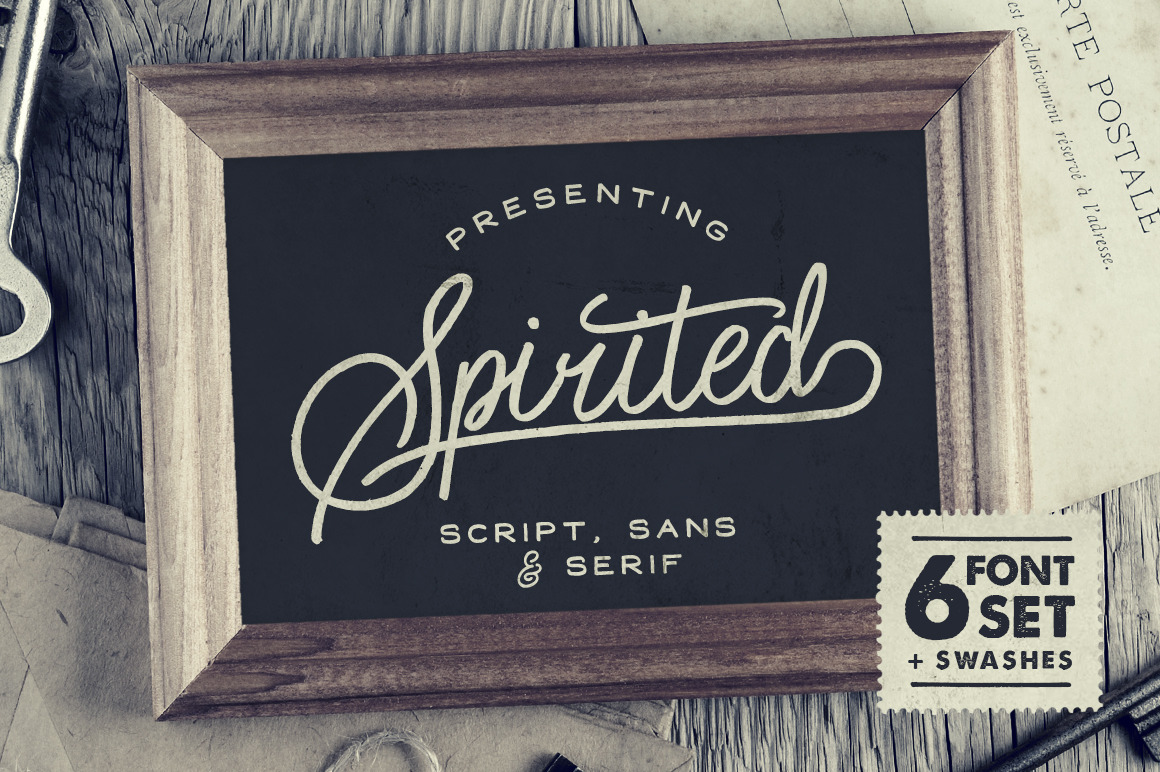
Spirited • 6 Fonts + Swashes
Spirited Font Set is a hand-drawn typeface set including six lovingly hand-made fonts for the price of one. Each has been carefully designed to work in harmony with each other, allowing you to create beautiful & professional looking typography in a flash.
With a very distinct retro style, this font set is perfect for creating hand-lettered quotes, logos and printed designs with a rustic, personal touch. Also included is a bonus swash font, consisting of 10 various swashes and shapes designed to give your text that extra touch of detail & attention.
★Please note the fonts are hand-drawn, so there are rough edges throughout in order to give it an authentic feel★
Spirited Script Regular & Bold is a set of upper & lowercase cursive characters which includes a large range of punctuation glyphs, numerals, and supports international languages. Stylistic alternates for several lowercase characters are also available, accessible in the Adobe Illustrator Glyphs panel, or under Stylistic Alternates in the Adobe Photoshop OpenType menu.
Spirited Serif Regular & Bold is a set of upper-case only condensed serif characters which includes a large range of punctuation glyphs, numerals, and supports international languages.
Spirited Sans Regular & Bold is a set of upper-case only wide sans-serif characters which includes a large range of punctuation glyphs, numerals, and supports international languages.
Spirited Swash Regular & Bold is a set of 10 hand-drawn swashes and type containers.